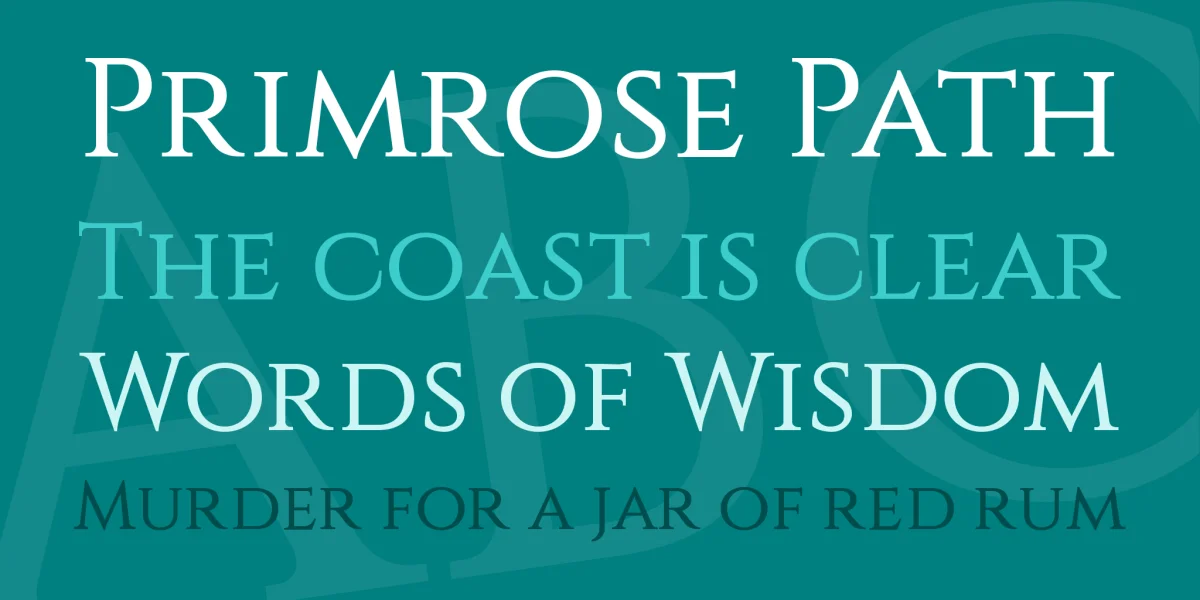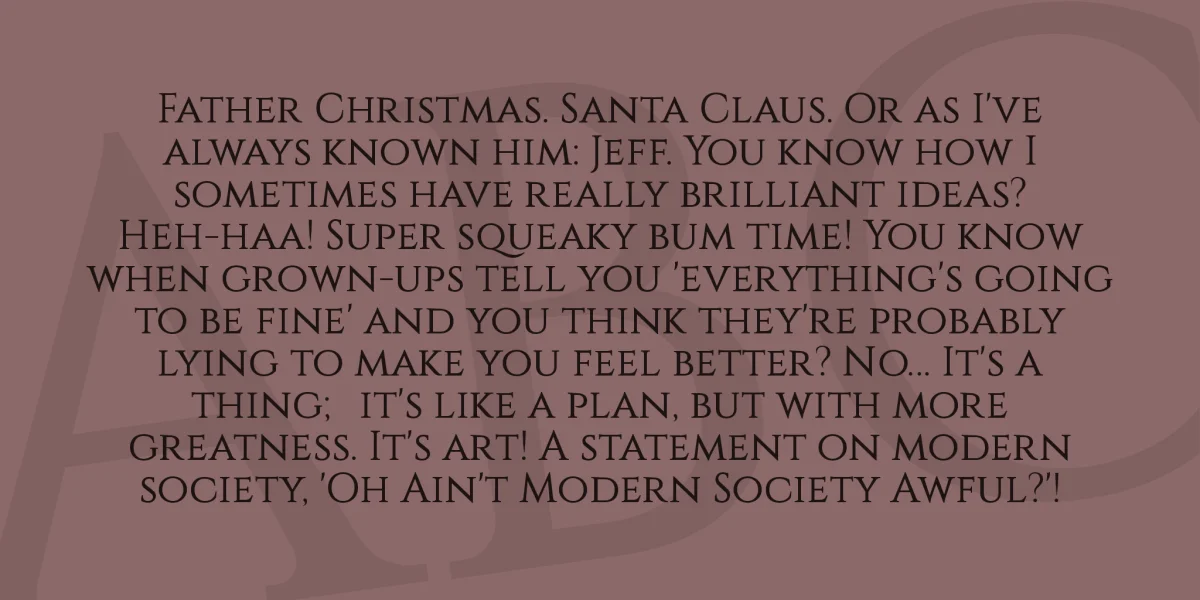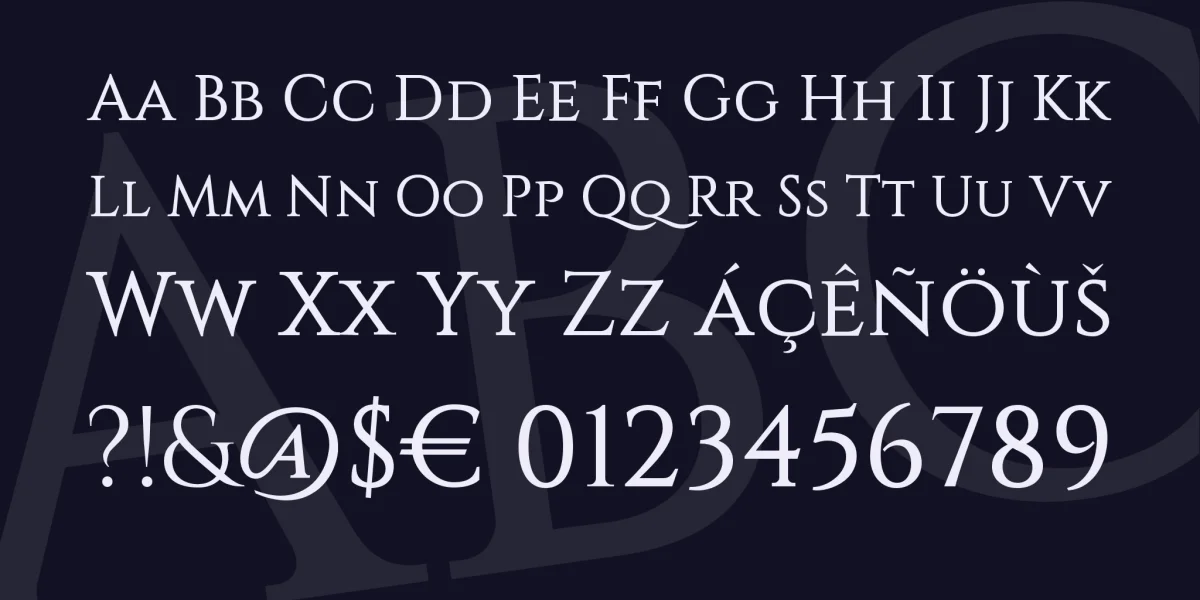
Constantine is roman style typeface inspired by emperor Constantine the Great. He was born in nowadays Serbia, in city Naissus (Nish) and ruled from 306 to 337 AD. Font is based on Cinzel with full serbian and cyrillic support, including the Chi Rho symbol. You can use font for free, but please DONATE if you can.